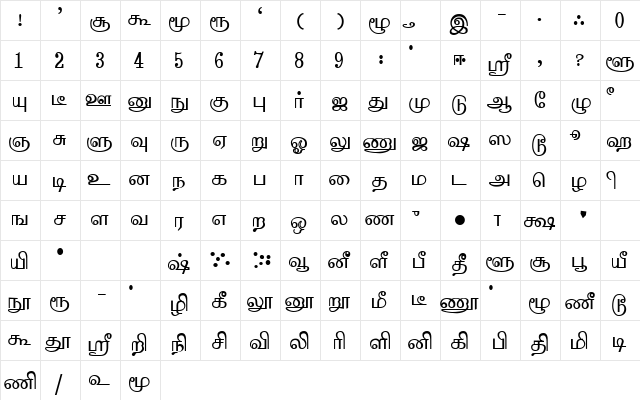
UthayaNet Regular
Design Context for UthayaNet Typeface
UthayaNet is a composed and adaptable typeface that performs quietly and consistently across a wide range of design contexts.